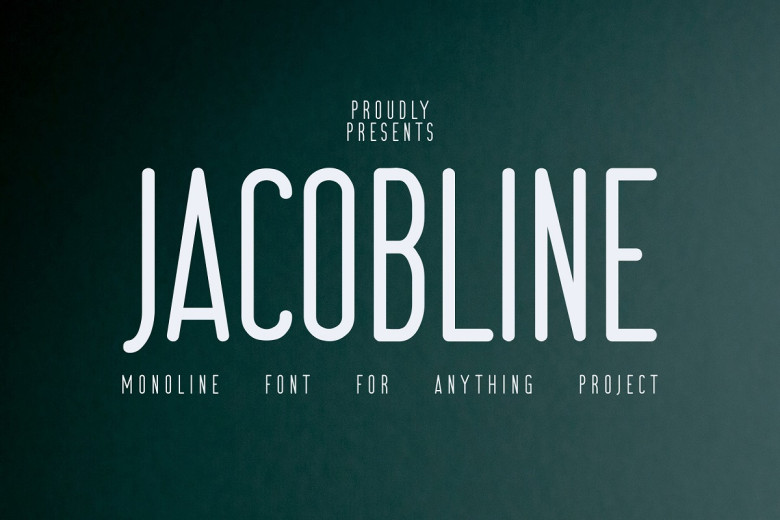
Jacobline Font
Jacobline Font is a font from the normal monoline family. It is taller and slimmer than the usual monoline. This font typology can also be added a size bold so that the resulting display has a stronger character.
This font is suitable for writing titles ; in fact, the content of a written formula can use this font. This font type is used to write neatly the product:
Jacobline Sans Serif Font